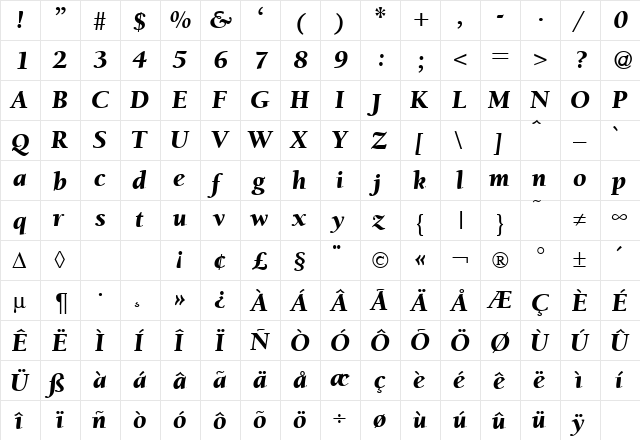
BergmannOldStyleBlack RegularItalic
Design Context for BergmannOldStyleBlack Typeface
BergmannOldStyleBlack carries the refined structure of traditional serif typography, with bracketed terminals and considered proportions that communicate credibility and craft. The slanted form adds forward momentum and visual energy.